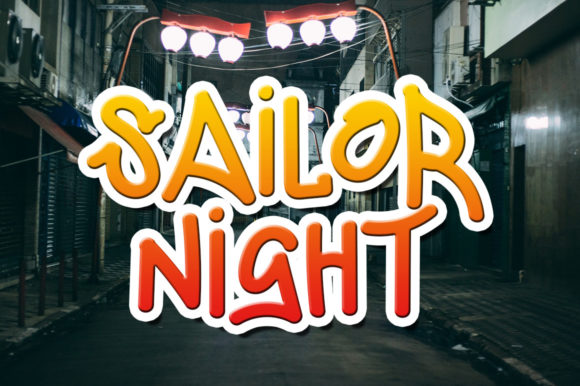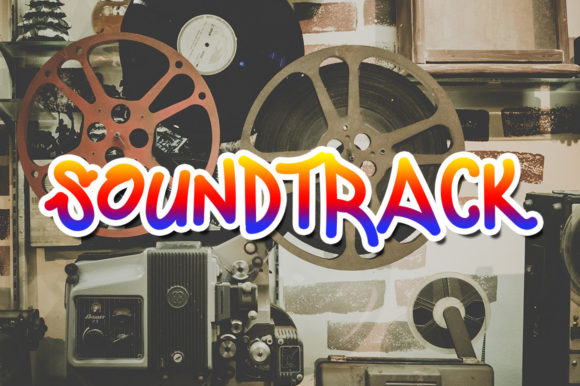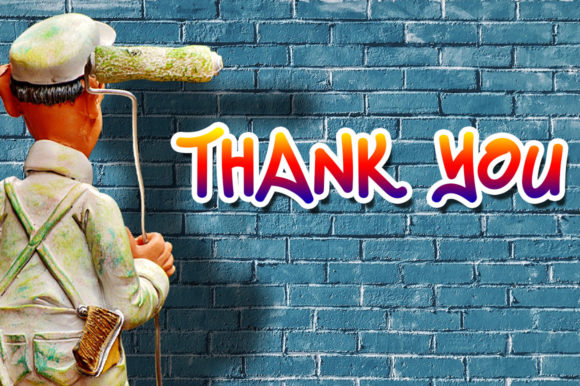
Introduction to Ending Loving Font Font
Fonts play a crucial role in design, and the Ending Loving Font font is a typeface that brings both character and versatility to any project. Whether you’re working on a branding project, a website, or a print design, the Ending Loving Font font offers a unique style that can elevate your work.
Ending Loving is a cool and modern display font that can add lively street vibes to any creation.
It is perfectly suitable for branding, labels, logos, watermarks, apparel designs, and so much more .
Key Features of Ending Loving Font Font
Why Choose Ending Loving Font Font?
The Ending Loving Font font is more than just a typeface – it’s a design tool that helps you communicate your message with style and clarity. Its unique character set and versatile design make it suitable for a wide range of applications, from elegant invitations to bold headlines.
With its carefully crafted letterforms and balanced proportions, the Ending Loving Font font ensures readability and visual appeal across all mediums.
What makes Ending Loving Font font special?
The Ending Loving Font font stands out with its unique design, exceptional readability, and versatility across various design applications.